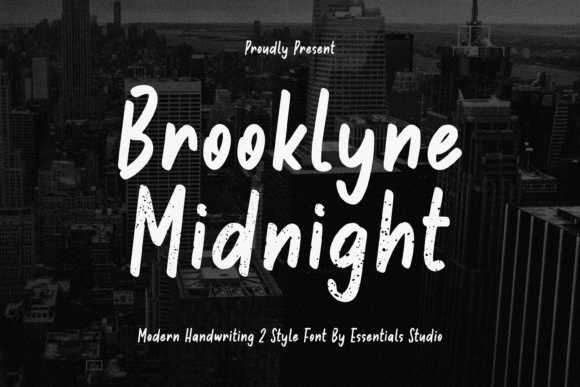
Welcome to the realm of Brooklyne Midnight Font, a mesmerizing script font that will cast a spell on you and your creations. This exquisite handwritten font is a masterpiece, meticulously crafted to make your projects shine like never before.
Brooklyne Midnight retains its elegant calligraphic roots, paying homage to the timeless art of penmanship. Yet, it breaks free from tradition, embracing a refreshing contemporary style that's both modern and captivating. It's a font that dances between the classic and the innovative, exuding an irresistible charm that's sure to leave you enchanted.
Step into a world where sophistication meets playfulness with Brooklyne Midnight. Its enchanting flow and graceful strokes bring life and personality to your designs. Whether you're creating school logos, branding materials, or simply adding a touch of elegance to your digital creations, this font will elevate your work to new heights.
Brooklyne Midnight is more than just a font; it's an experience. Its captivating curves and swirls will draw your audience in, capturing their attention and leaving them spellbound. Imagine your school logos, with their bold and distinctive presence, standing out from the crowd and making a lasting impression. Or picture your branding materials, infused with a touch of sophistication and charm, conveying your message with eloquence and style.